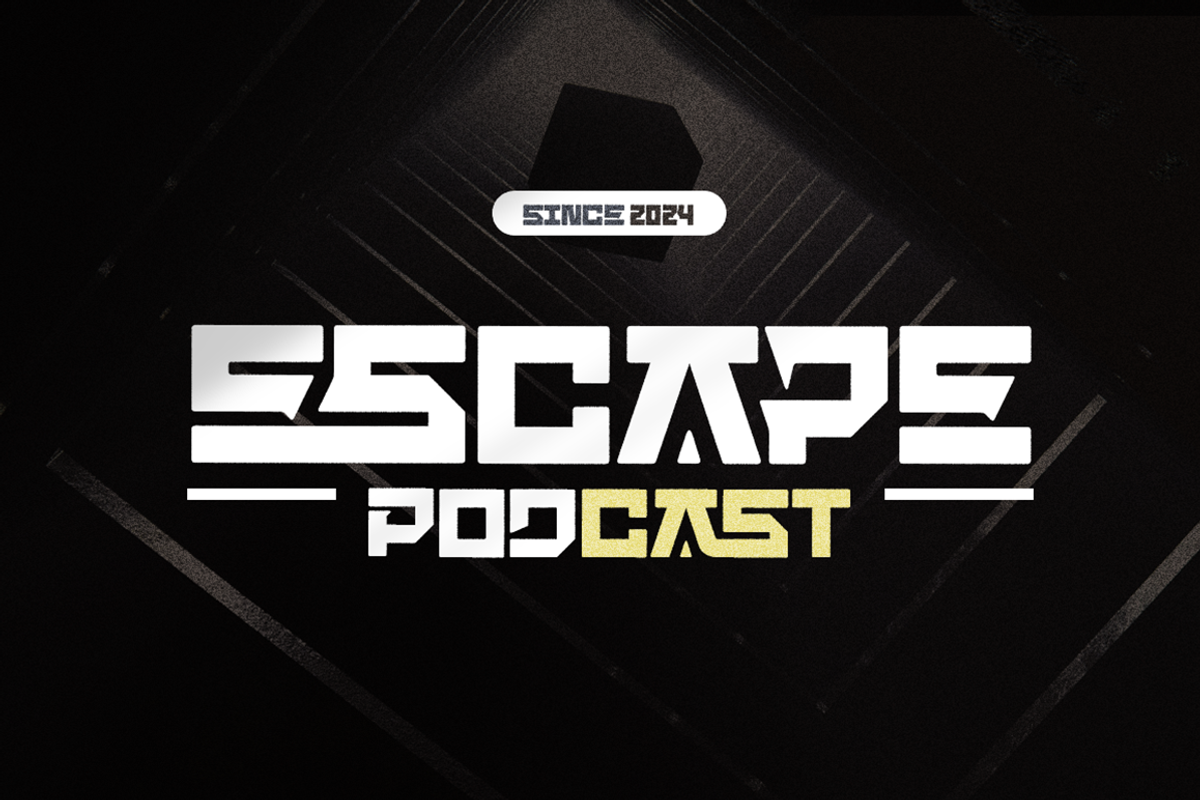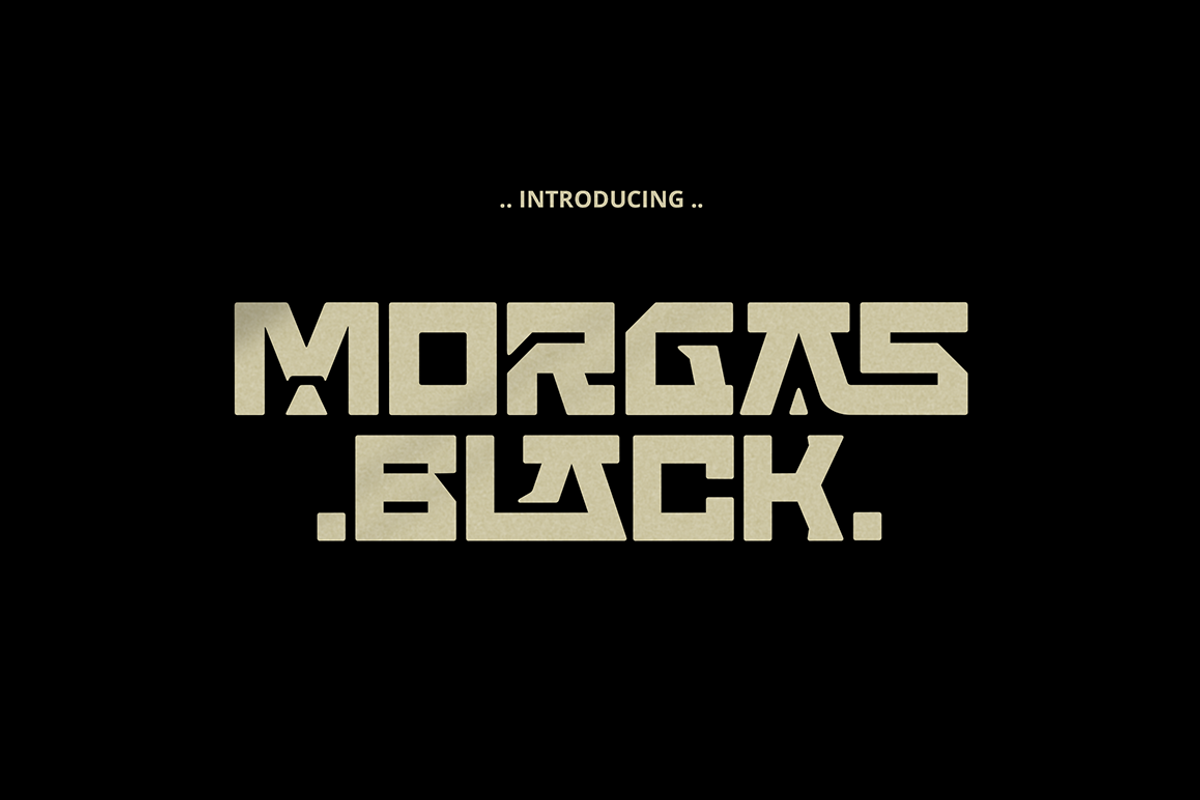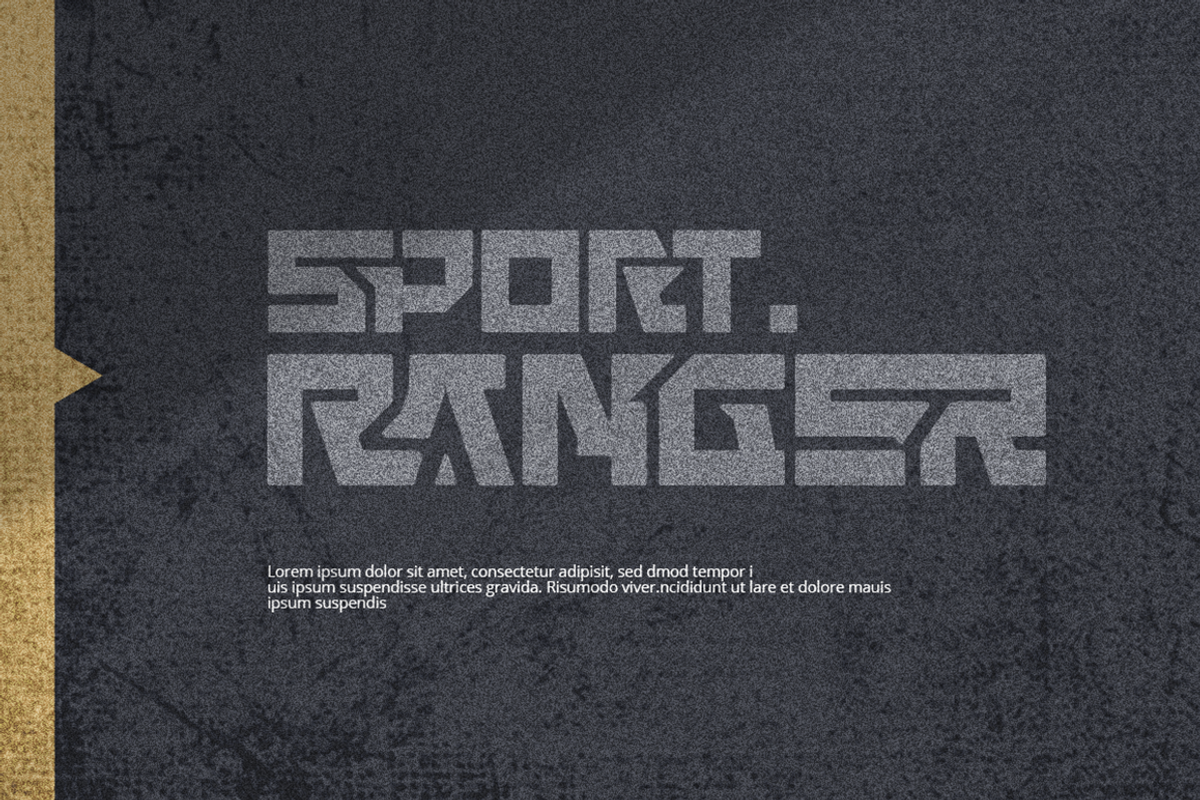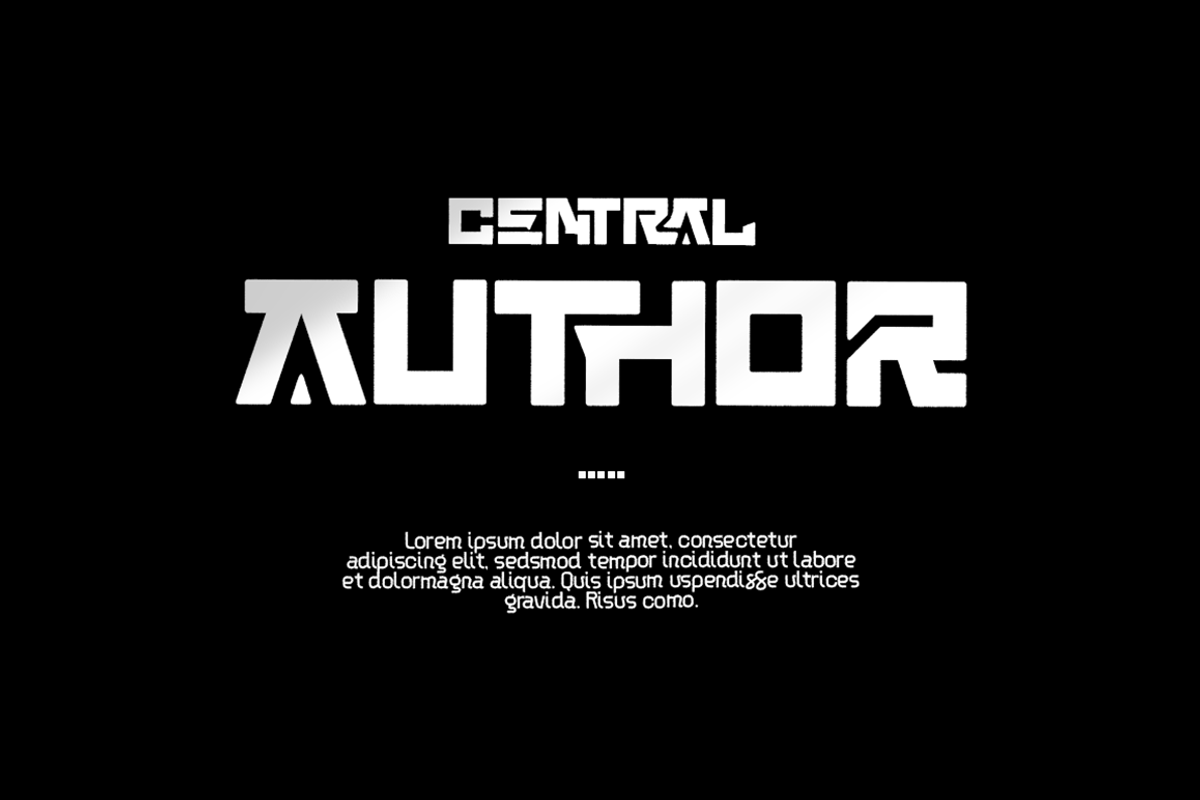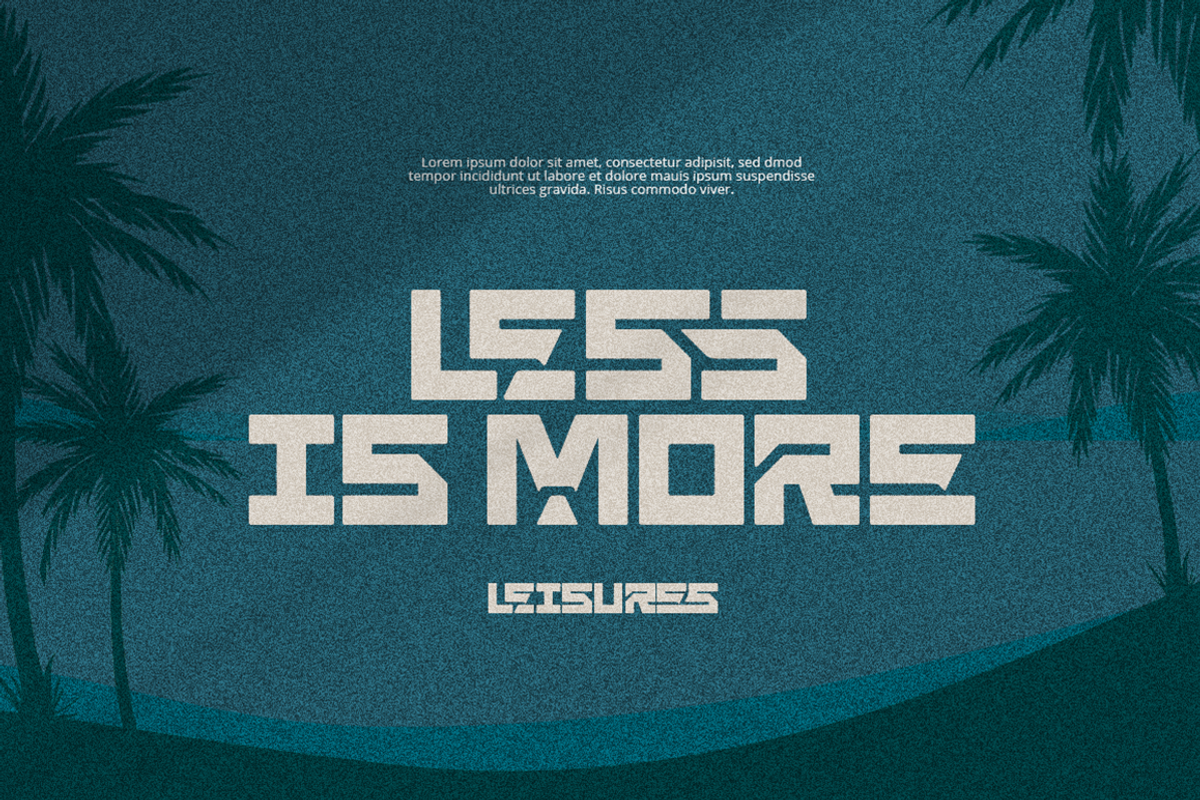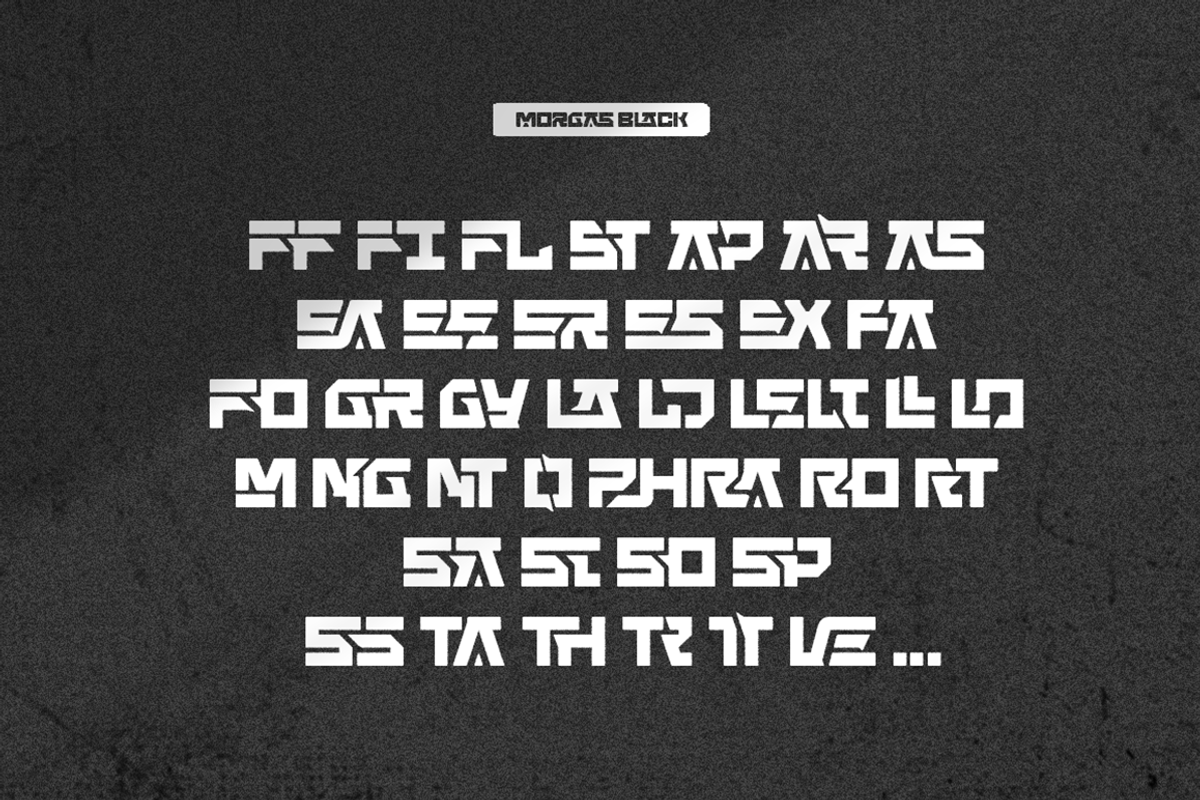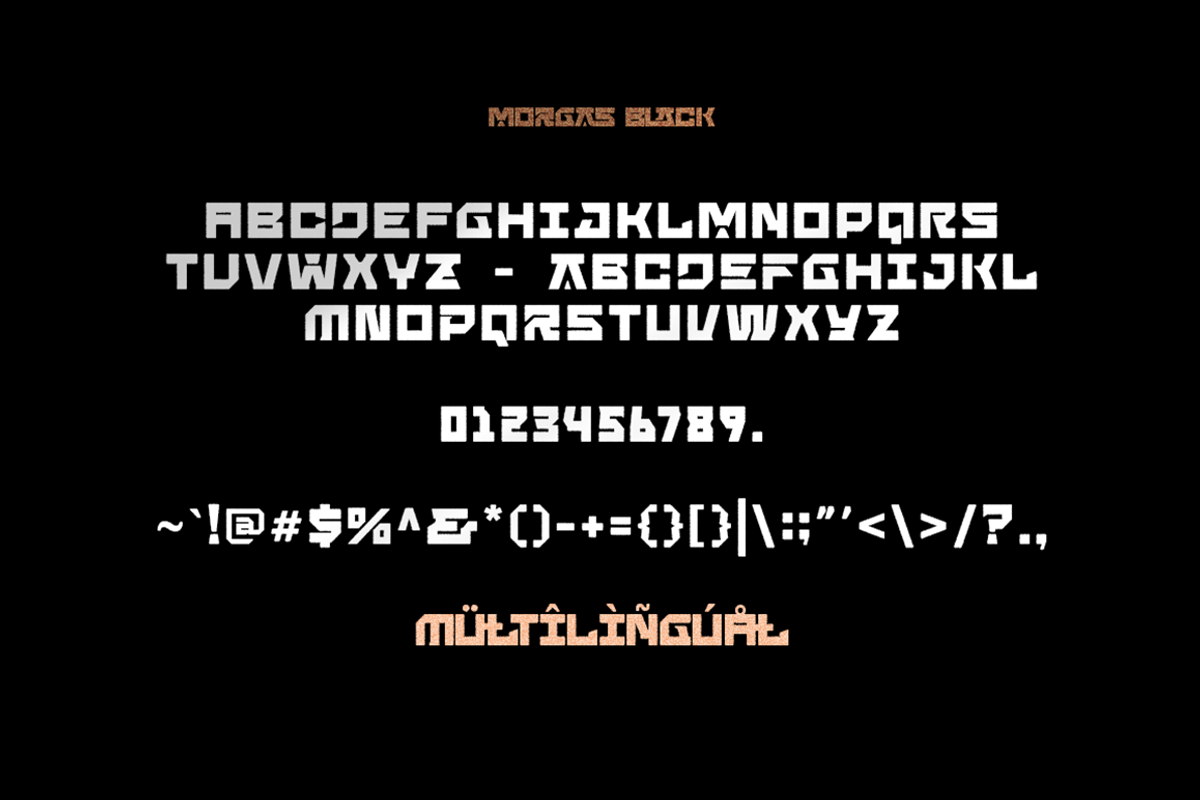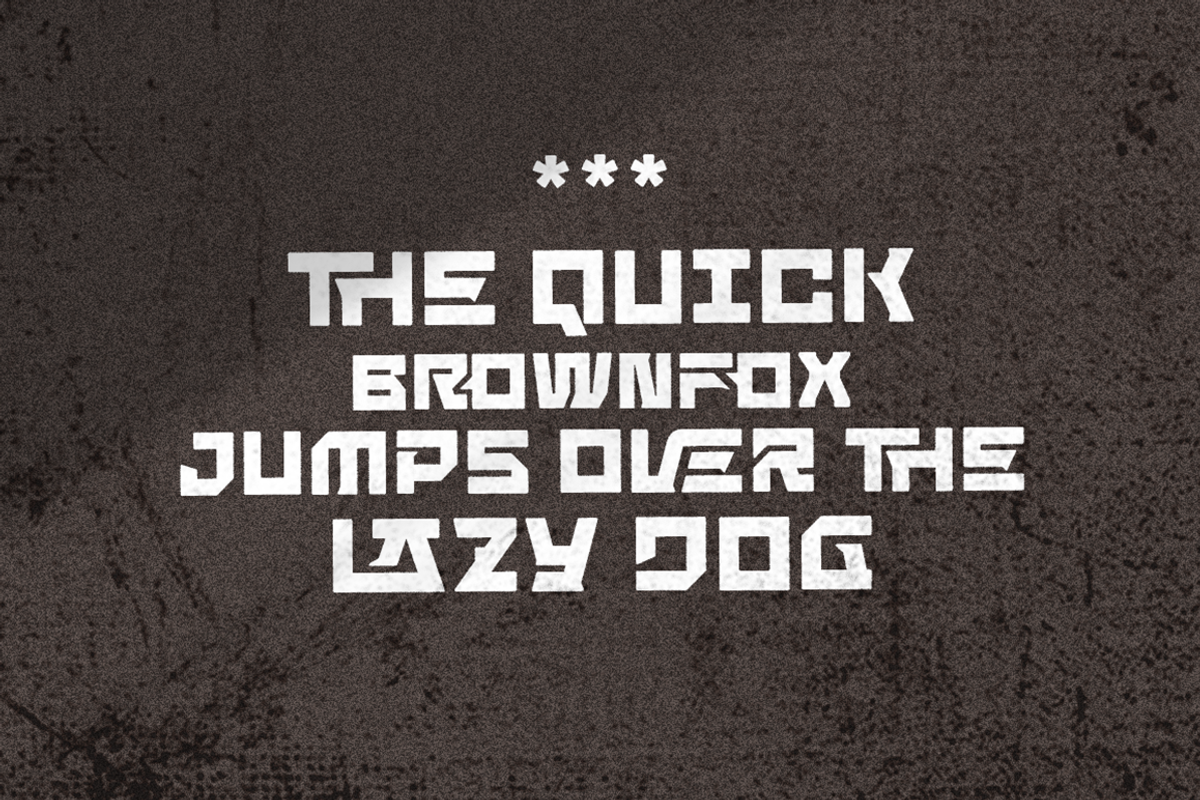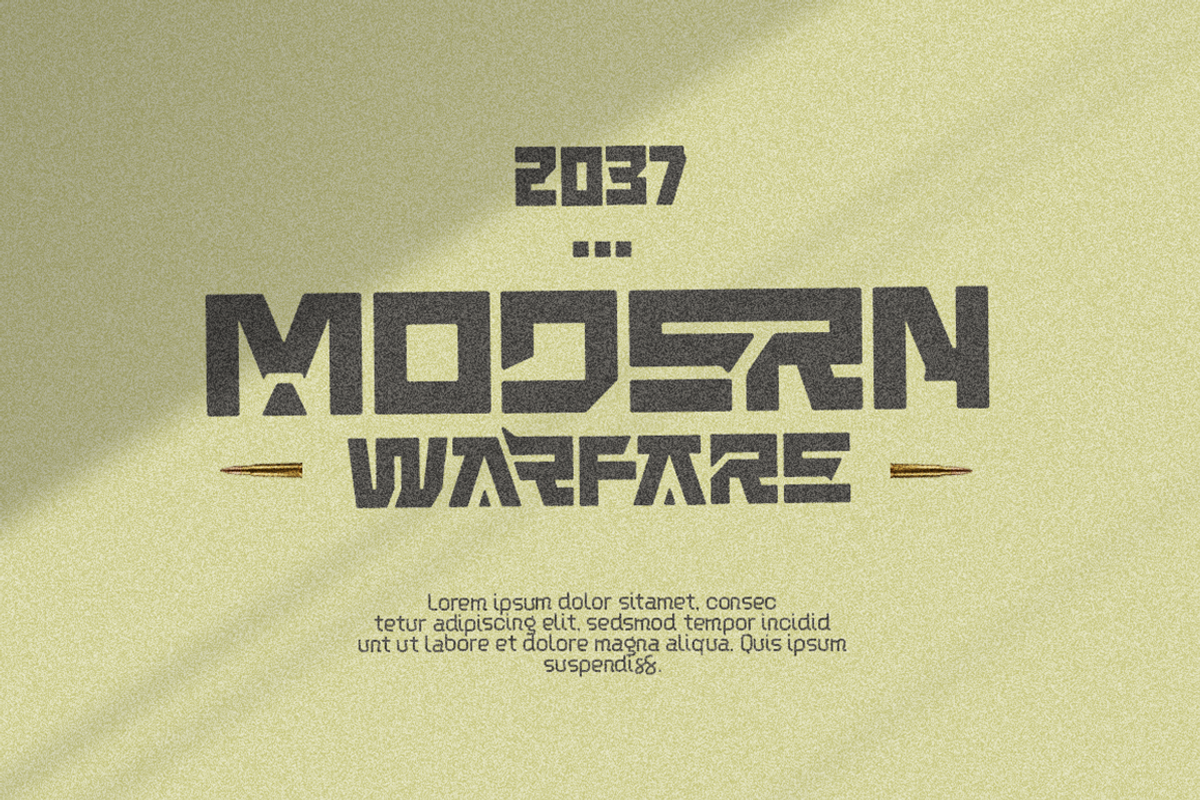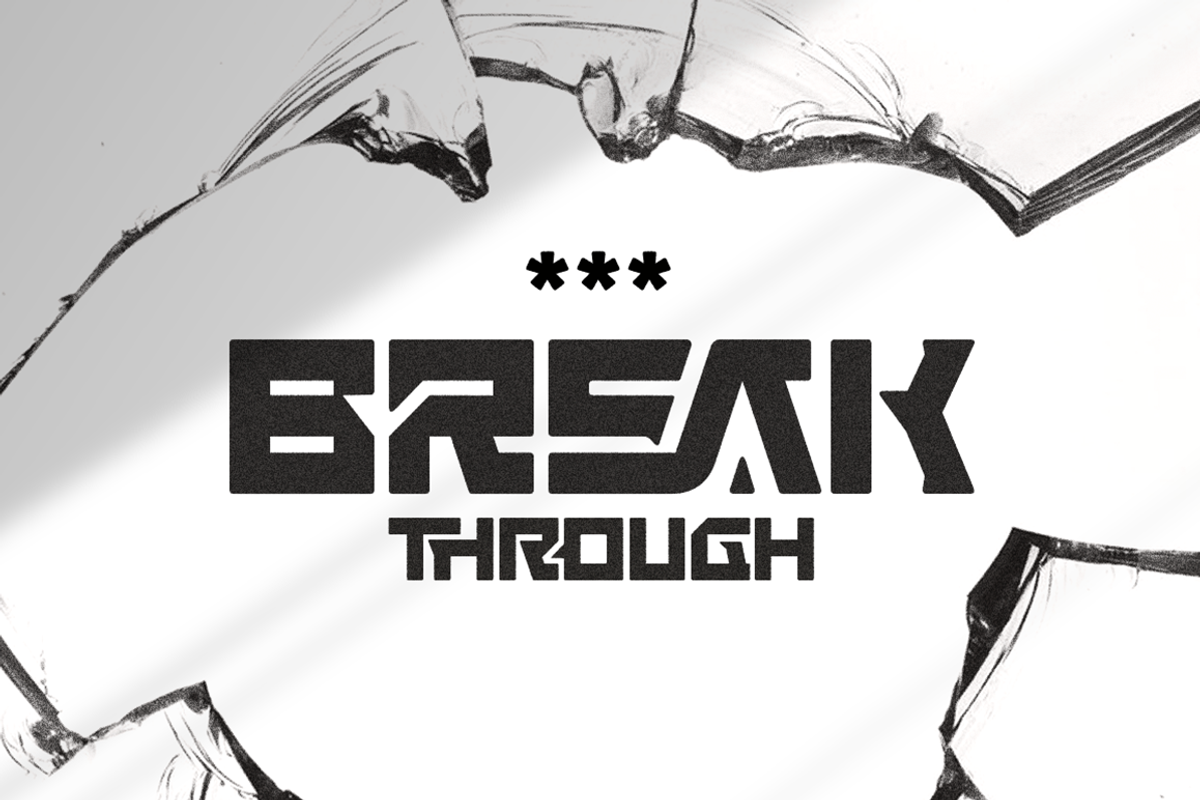
Morgas Black
Morgas Black is a bold and striking blackletter font that blends the timeless elegance of traditional Gothic typography with a futuristic, modern edge. Its intricate design is enhanced with an array of unique ligatures, adding a distinctive flair to every letterform. Perfect for creating eye-catching logos, headlines, posters, and branding, Morgas Black stands out as a font that exudes both strength and sophistication. Whether you’re aiming for a retro-futuristic aesthetic or a contemporary gothic vibe, Morgas Black brings unparalleled versatility and uniqueness to your creative projects.
- Bold Futuristic Font
- Modern Style
- Basic Latin Glyphs
- Unique All Caps Font
- Creative Ligatures
- Currencies